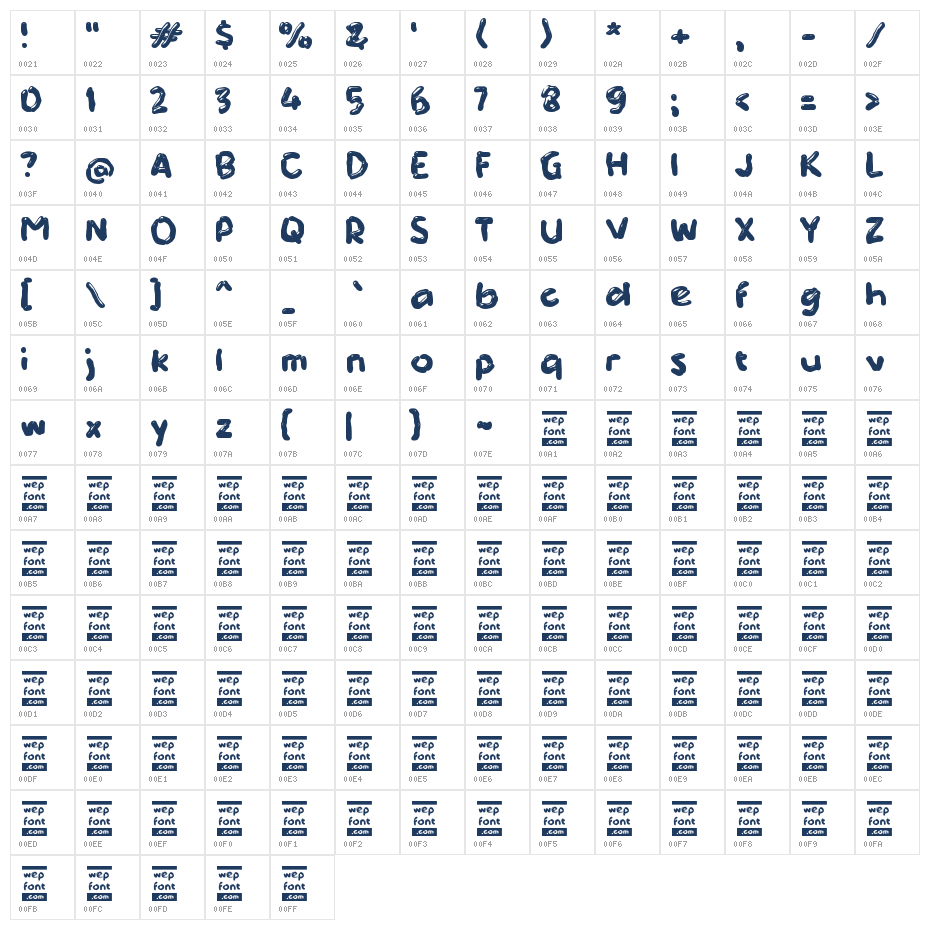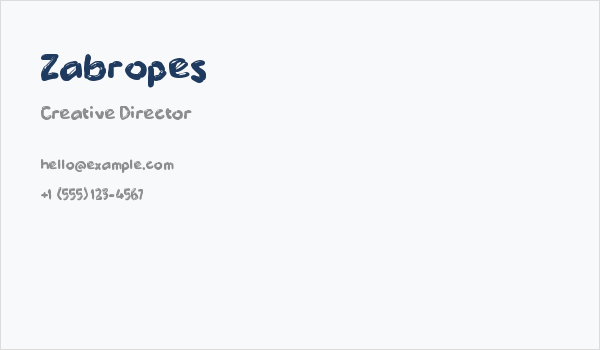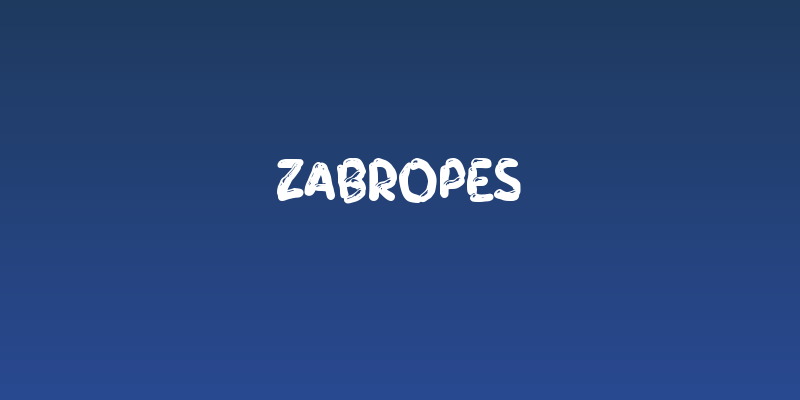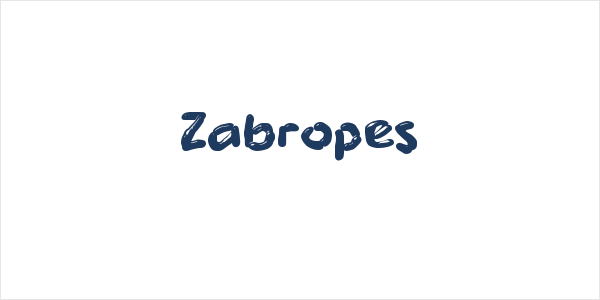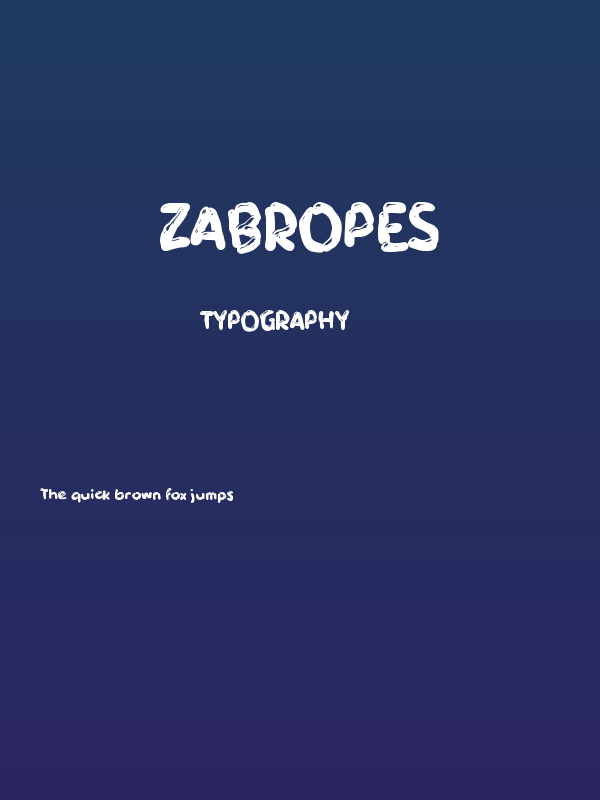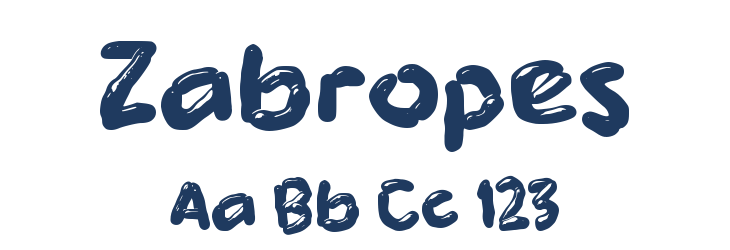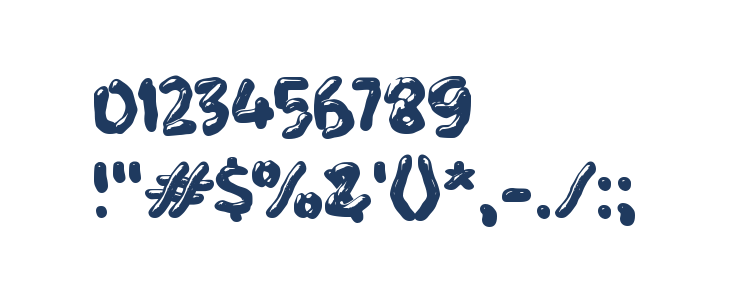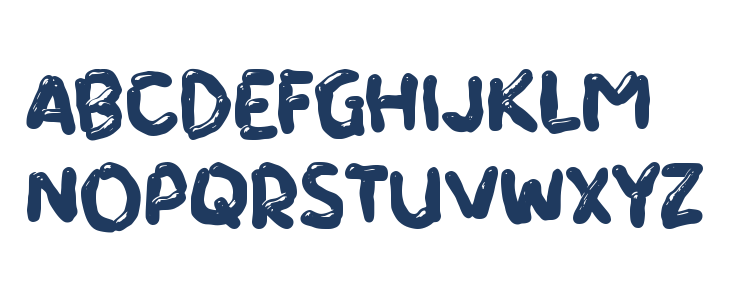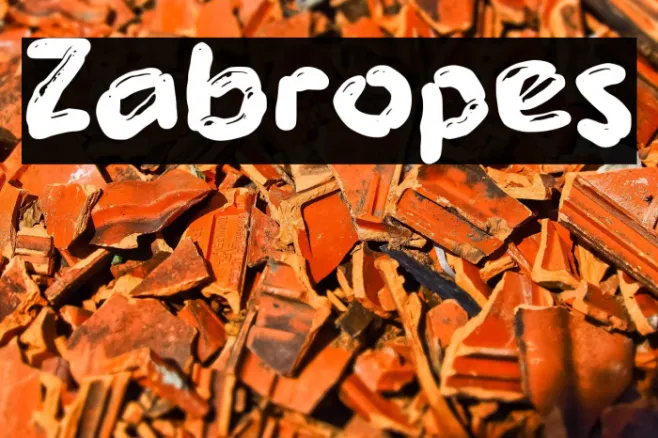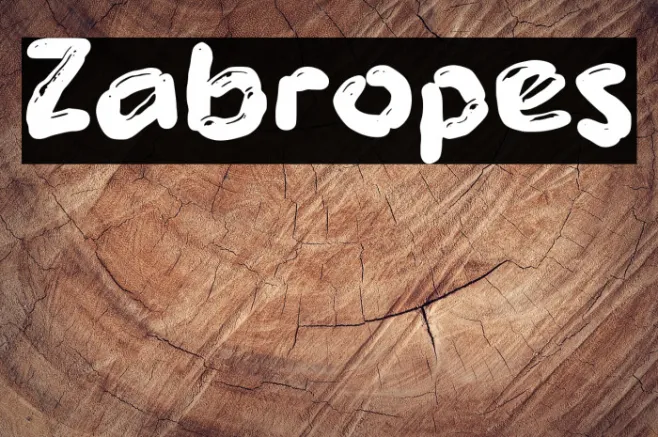
Zabropes Font
Zabropes Description
A playful, bold, handwritten style font with a textured, brushstroke appearance.
| Overall Style | Casual, Playful, Handcrafted |
| Use Case | Headlines, Logos, Posters, Children's books |